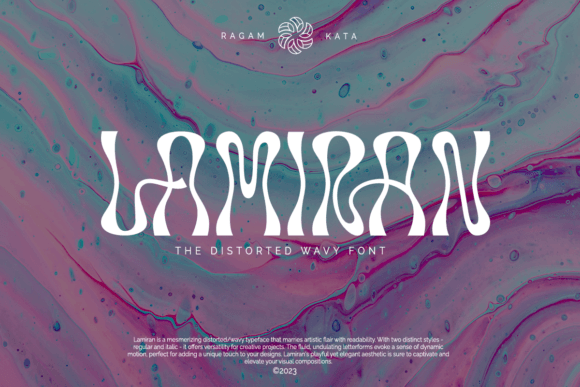
Introducing Lamiran Font, a whimsical and charming display font that will effortlessly elevate the visual appeal of your creative projects. With its playful and slightly quirky character, Lamiran breathes life into your designs, adding a touch of joy and creativity.
Step into a world of visual delight, where Lamiran's distinct personality shines through. Each letter dances with a unique charm, engaging your audience with its captivating presence. Whether you're crafting a captivating logo, designing an eye-catching poster, or creating an unforgettable social media post, Lamiran is your perfect companion.
Discover the versatility of Lamiran, a font family that adapts seamlessly to a wide range of design styles. From playful and whimsical to elegant and sophisticated, Lamiran effortlessly complements your vision, adding a touch of magic to every project. Unleash your creativity and let Lamiran take your designs to new heights.
Experience the ease of use that Lamiran offers. With its user-friendly interface and comprehensive character set, Lamiran integrates effortlessly into your workflow, allowing you to focus on what truly matters: expressing your creativity. Say goodbye to technical hurdles and embrace the seamless design experience that Lamiran provides.
Join the creative community that has embraced Lamiran as their go-to font for captivating designs. Whether you're a seasoned designer or just starting your creative journey, Lamiran empowers you to create stunning visuals that leave a lasting impression.
Don't miss out on the opportunity to elevate your designs with Lamiran. Add this captivating font to your collection today and embark on a creative adventure like never before. Let Lamiran be your muse, igniting your imagination and transforming your designs into masterpieces.